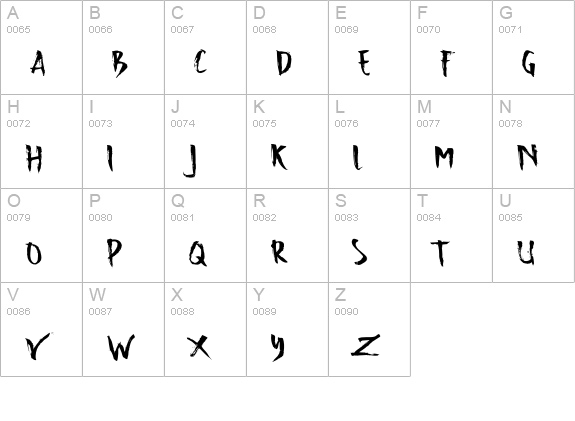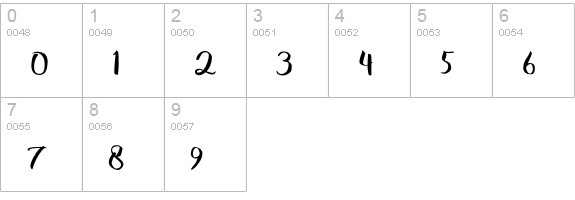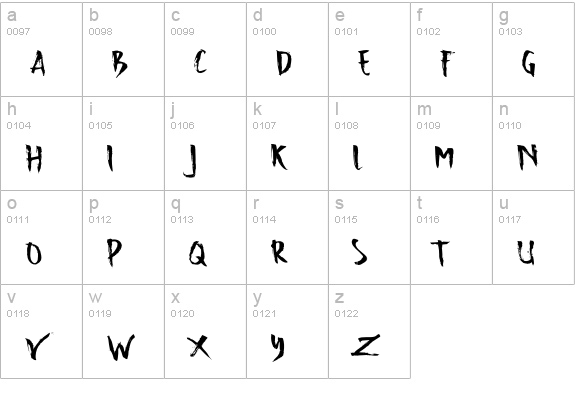
Introducing Native Land Two font, a beautiful and versatile typeface that captures the essence of nature and tradition. This unique font features elegant curves and intricate details that evoke a sense of heritage and authenticity. Whether you're designing a rustic logo, crafting a vintage-inspired poster, or creating a charming invitation, Native Land Two font will add a touch of elegance and sophistication to your projects. What sets Native Land Two font apart is its versatile nature - it can be used for a wide range of design projects, from branding and packaging to editorial and web design. The font's timeless appeal makes it a great choice for both print and digital applications. Best of all, Native Land Two font is available for free download at FontsMarket.com, making it accessible to designers of all skill levels. So why wait? Add a touch of natural beauty to your designs with Native Land Two font today!